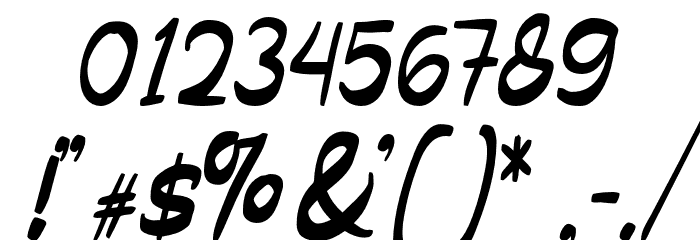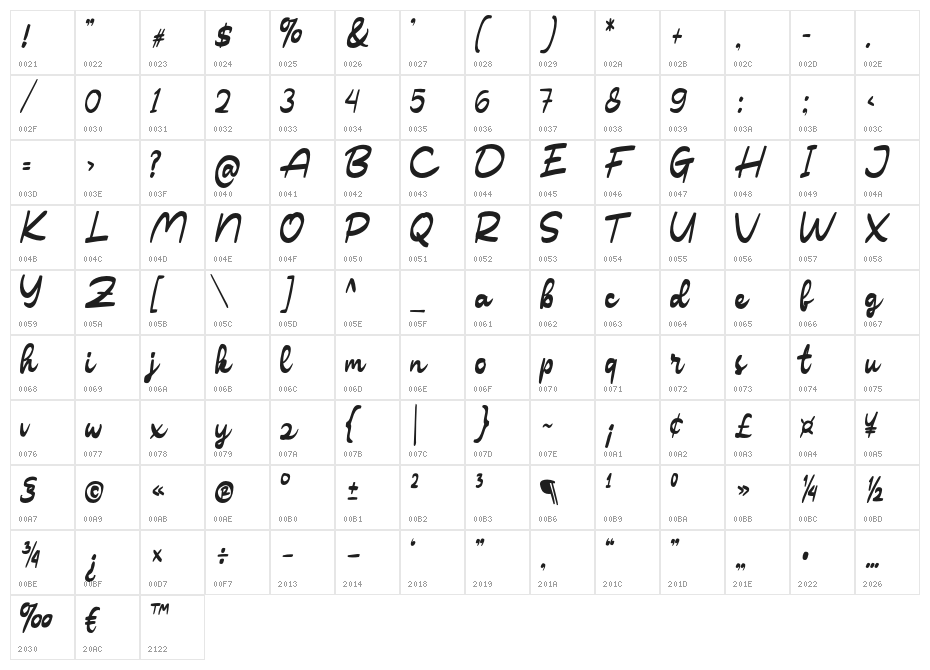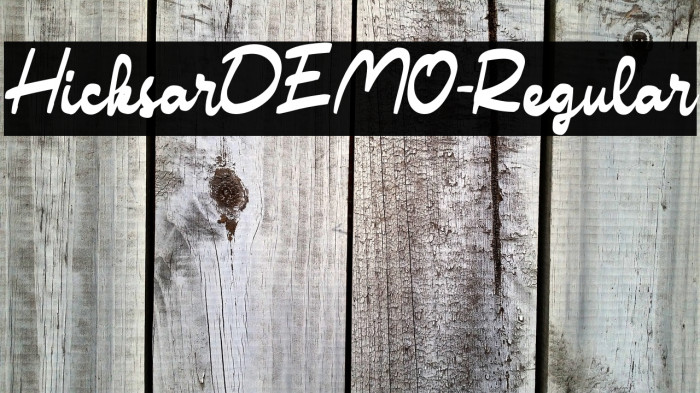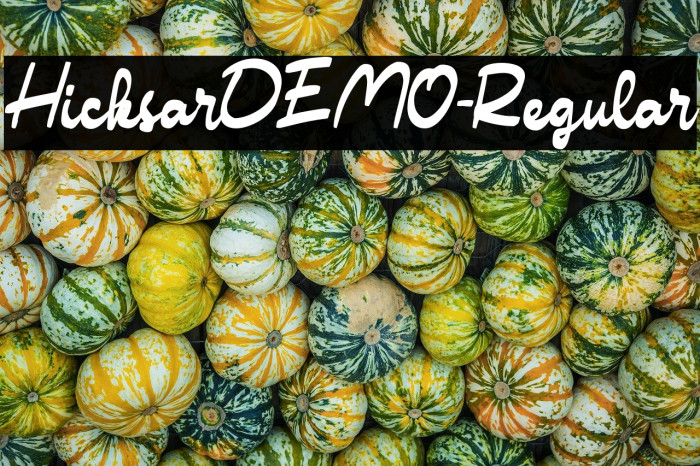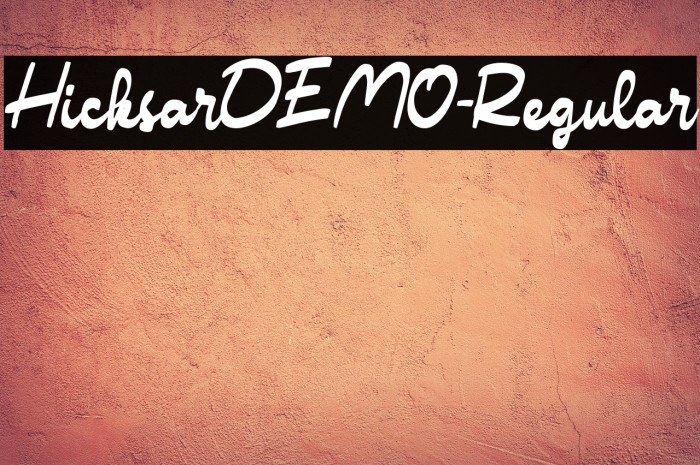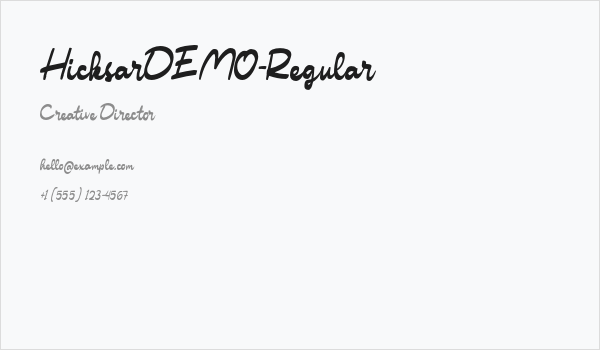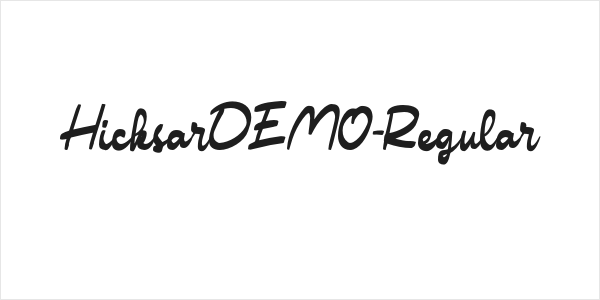
HicksarDEMO-Regular Font
HicksarDEMO-Regular Description
This font exhibits a dynamic and fluid script style, characterized by its bold and expressive strokes. The uppercase letters maintain a consistent slant, giving a sense of motion and elegance. The lowercase letters are well-balanced, with smooth curves and a slightly exaggerated flair, enhancing its handwritten appeal. The numerals are clear and legible, matching the overall style with a touch of playfulness. Special characters are integrated seamlessly, maintaining the font's cohesive look. This font is ideal for projects that require a personal touch, such as invitations, branding, and creative designs.
| Proposed Projects | Ideal for invitations, branding, creative designs, and any project needing a personal touch. |